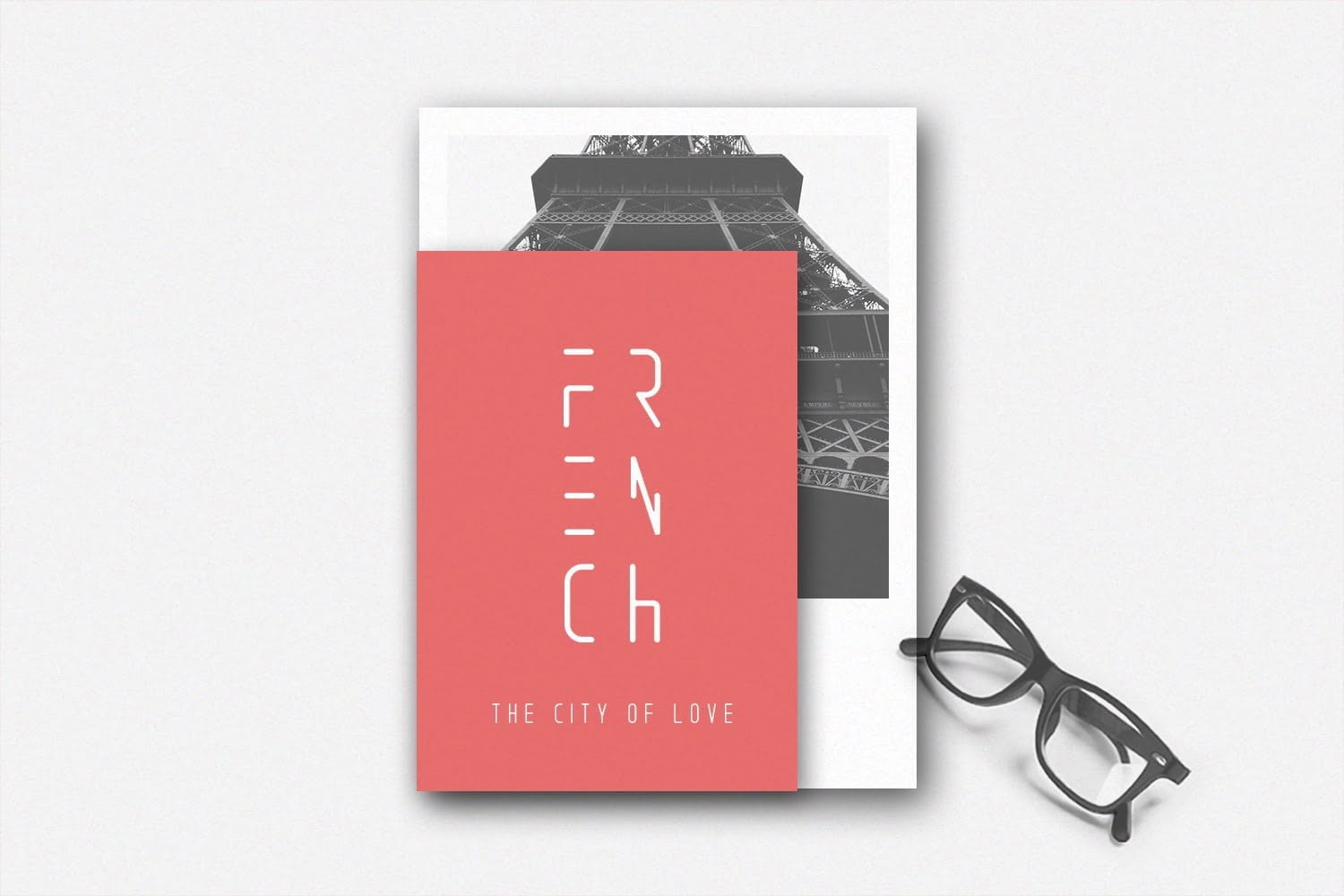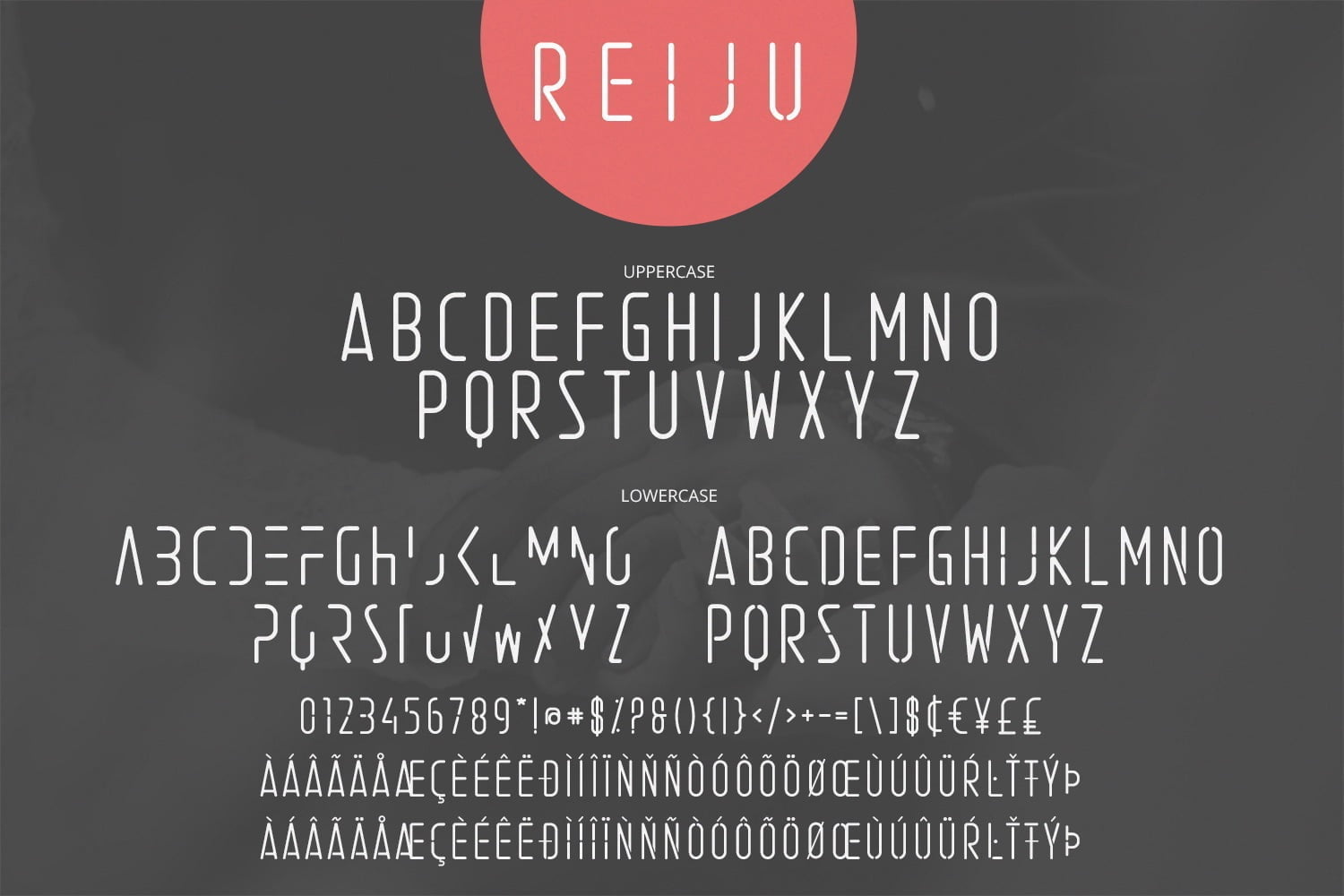
Reiju Font Duo is a versatile, feminine, and modern sans serif typeface. Designed for many different applications, ranging from quotes to branding to fashion, this font is not only beautiful but its clean aesthetic is sure to help you achieve your goals!
Reiju Feminine Font